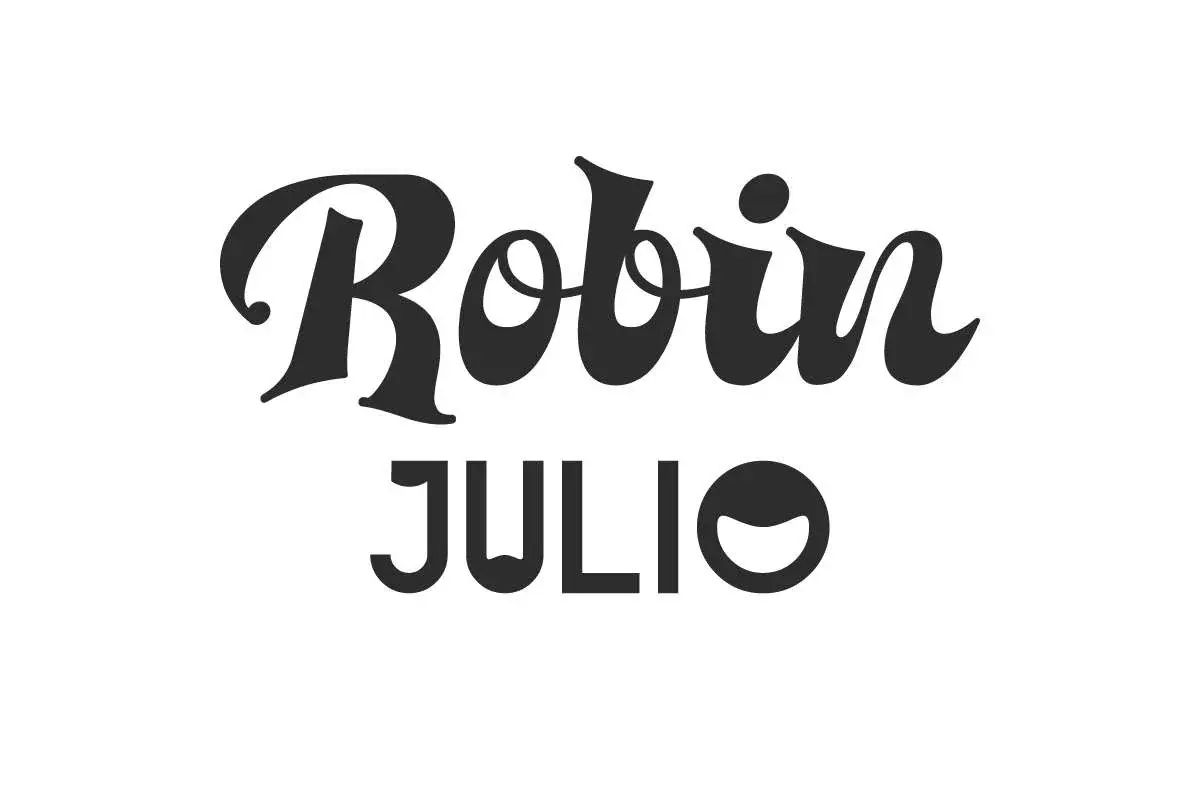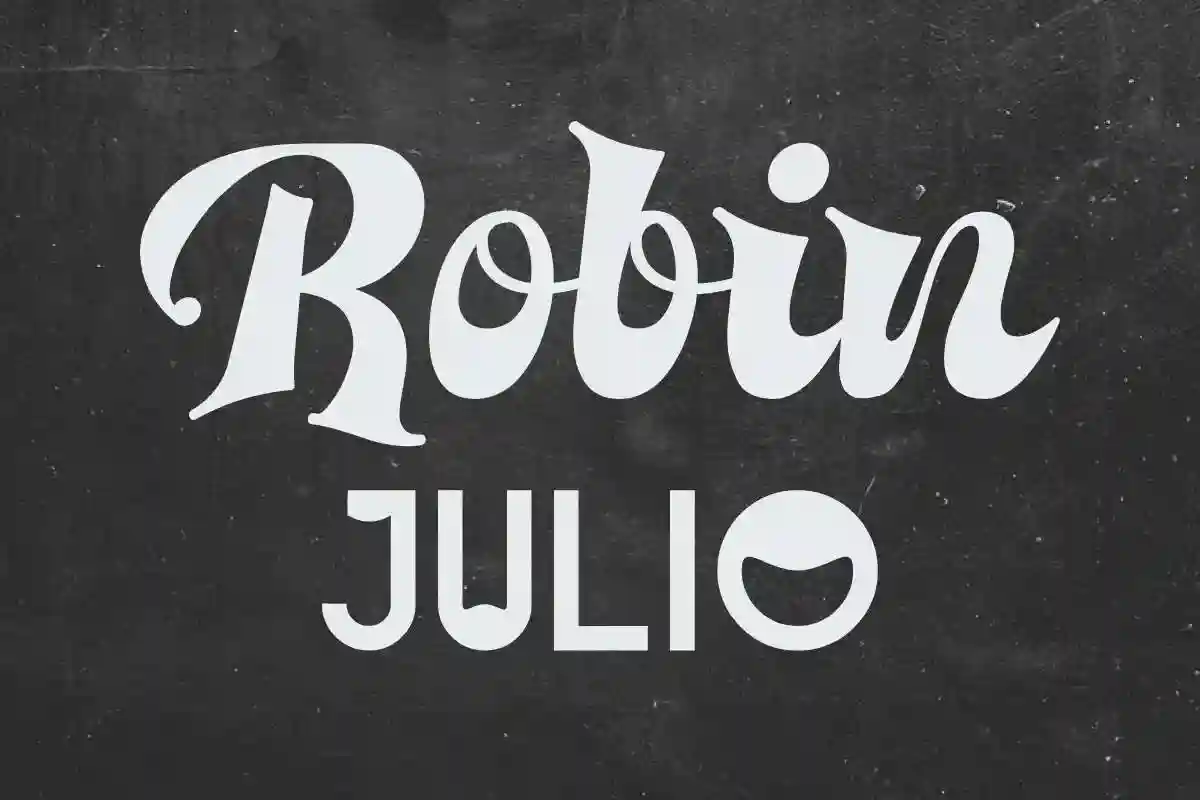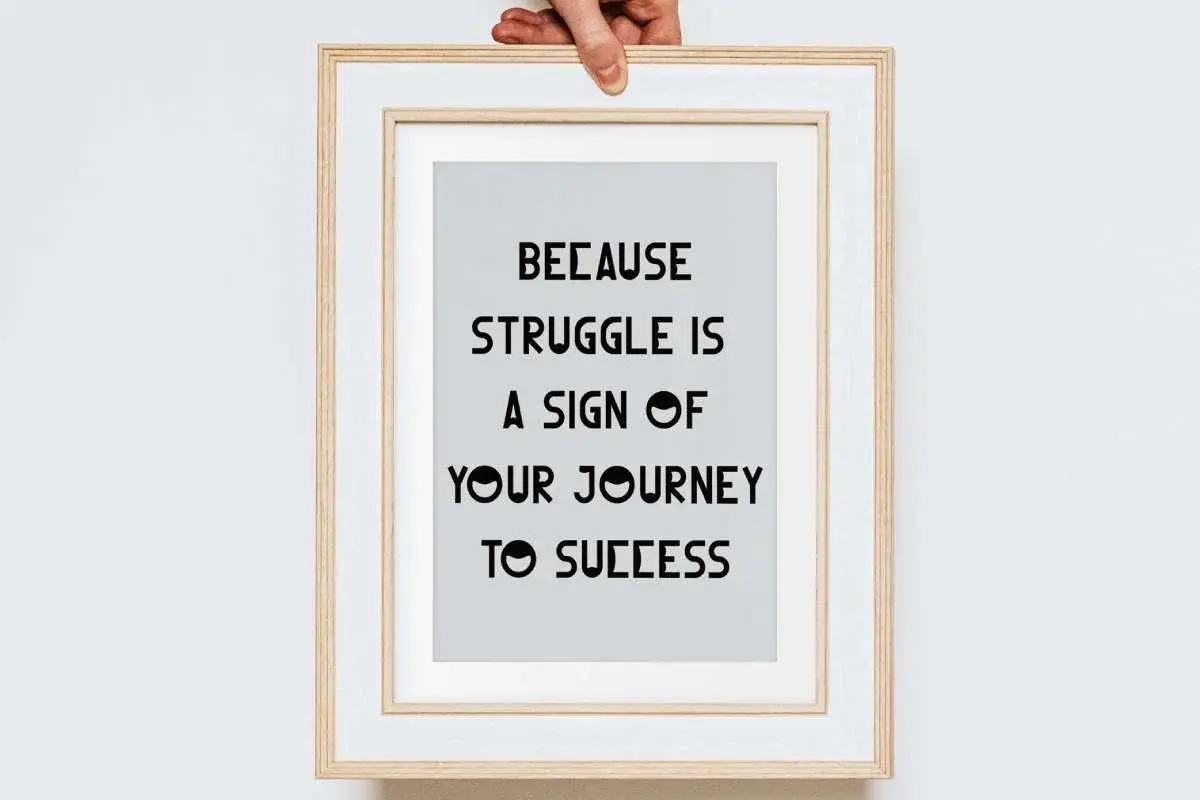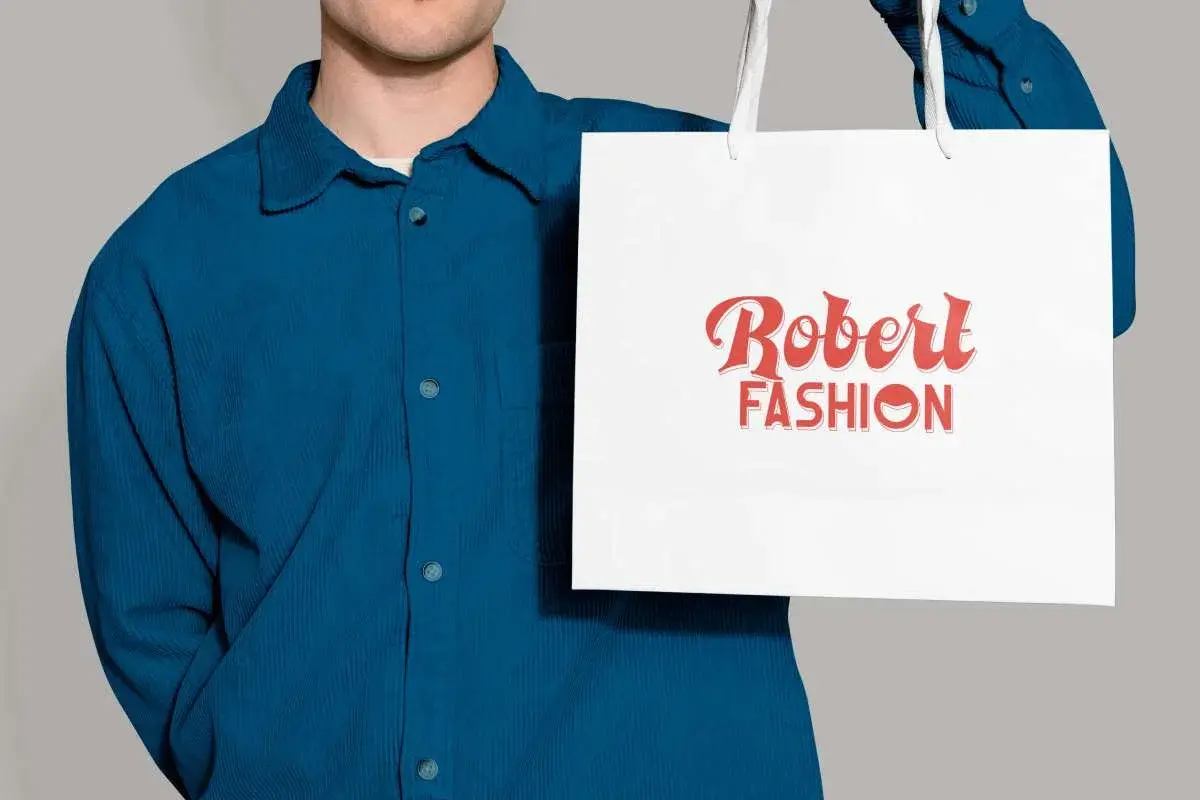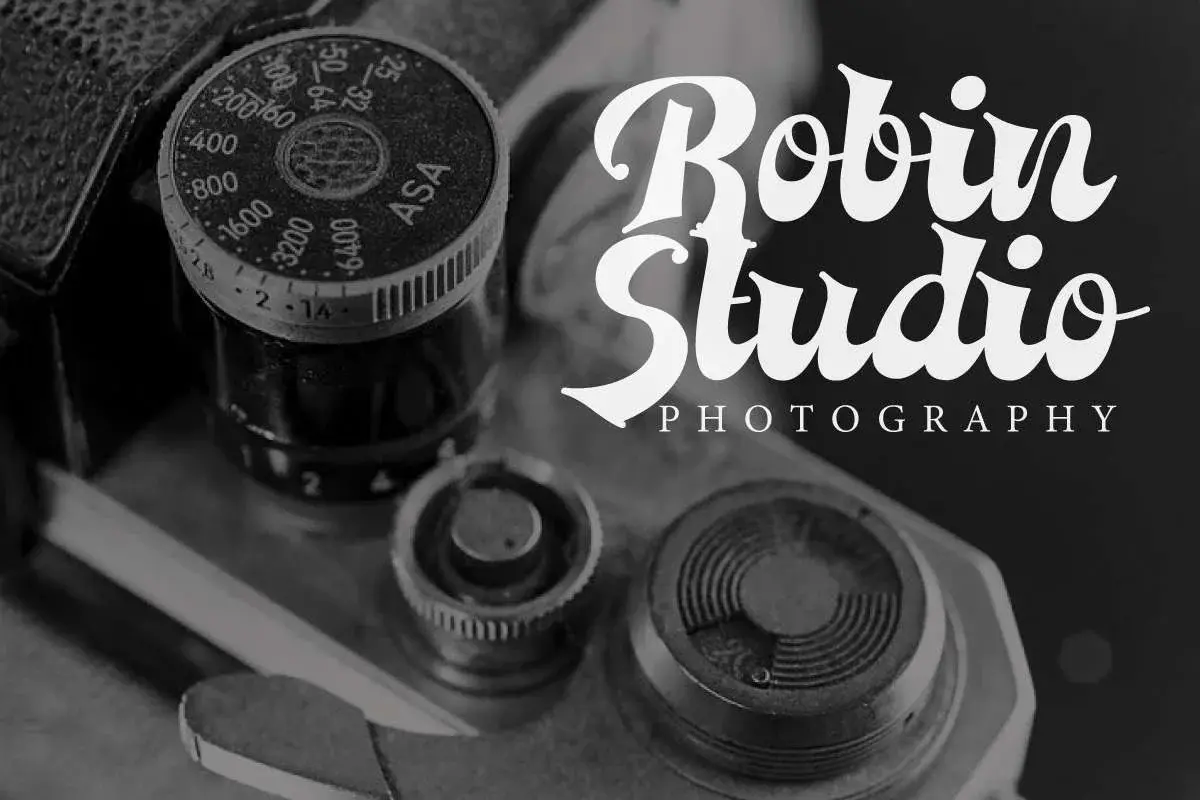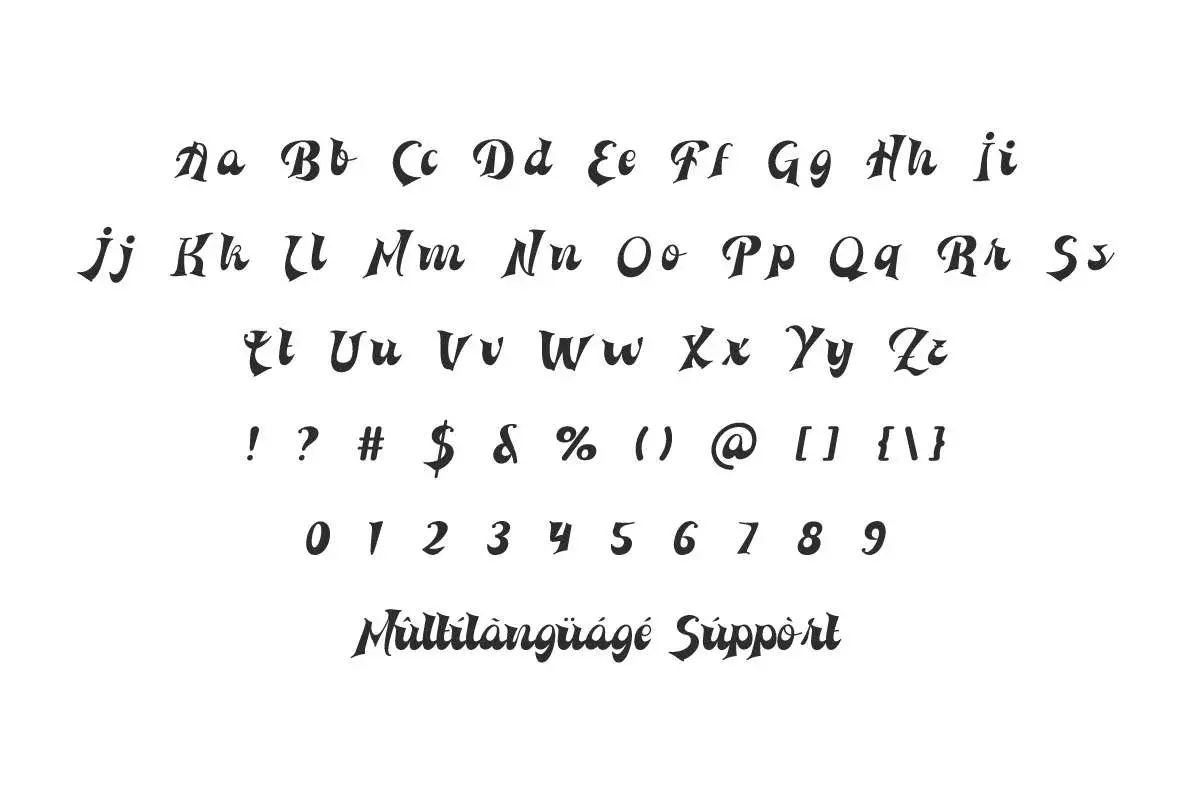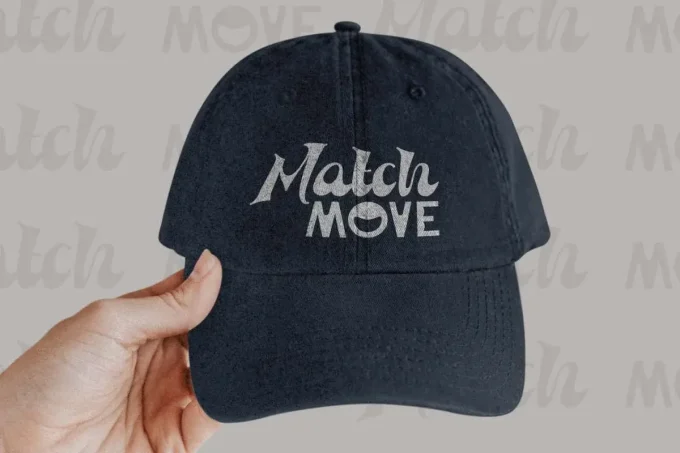
Robin Julio Font
Robin Julio Font is a classic cool font duo inspired from vintage designs that will blow your mind. The fonts comes with two different styles in 1 package. It will be perfect for coffee shop, restaurant menu, photography, poster, sport, t-shirt brand, title, etc.
Robin Julio Font is a cool font duo inspired from vintage designs. The fonts comes with two different styles in 1 package (Script and Display). This “Display” typeface has an eye-catching and unique look. Then combined with the presence of another typeface, namely “Script” with a brush inspired by the groove style which makes the appearance of the two blend perfectly in a vintage feel. It will be perfect for your project, such as billboard, brand logo, cover, label, packaging design, poster, quote, screen print, signage, stationery, title, website, etc.
Robin Julio Font includes full set of Uppercase and Lowercase Basic Characters (Script typeface only), while The Display typeface is ALL CAPS for each character letters, Number, Punctuation, Symbol. Use this for your business industry such as artist, café, clothing brand, fashion designer, furniture, handicrafts, photography, printing, publishing, restaurant, sport, etc.